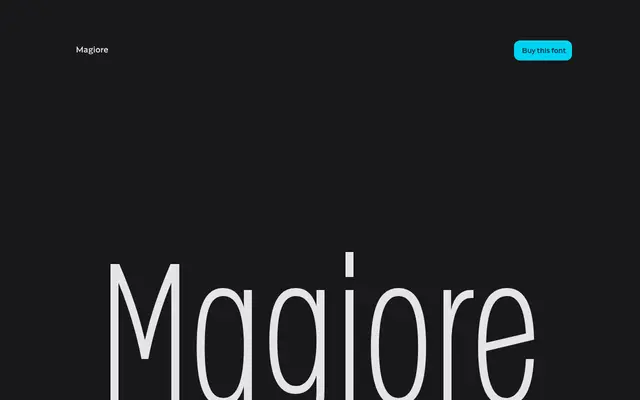
Magiore
Capitalics · Mateusz Machalski
A warm sans serif with Italian character, available across nine weights in both normal and condensed widths, including a variable font.
Designed by Mateusz Machalski at Capitalics, Magiore draws on an Italian sensibility to produce a sans serif suited to branding, posters and visual communication. The family spans nine weights from Thin to Black in both normal and condensed widths, giving 18 styles in total, with a variable font rounding out the offering. Many letters carry alternate versions, adding flexibility for typographic work that benefits from a more expressive touch.
Described as a sans serif with a friendly character and Italian provenance; the warm, humanist quality and alternate letterforms point to a humanist sans classification rather than a strict geometric or grotesque.